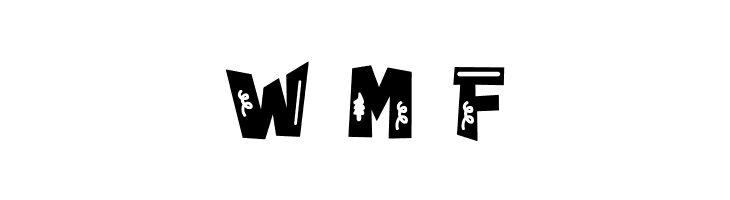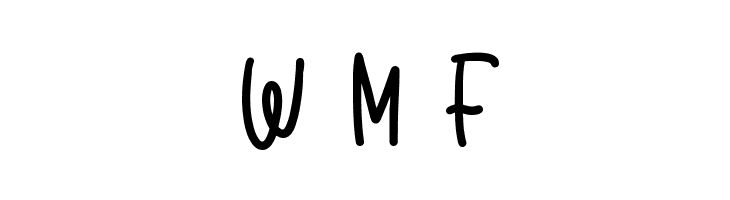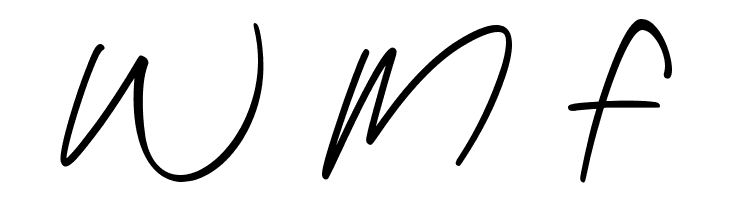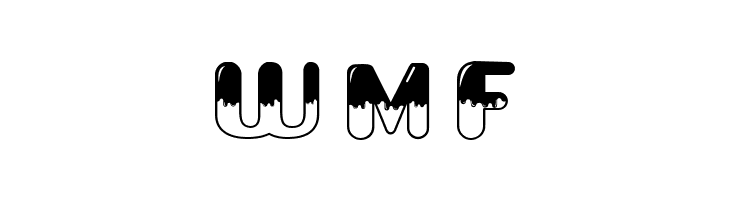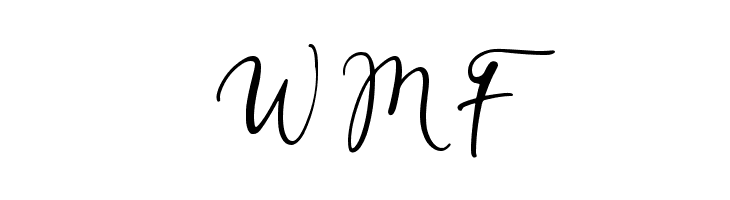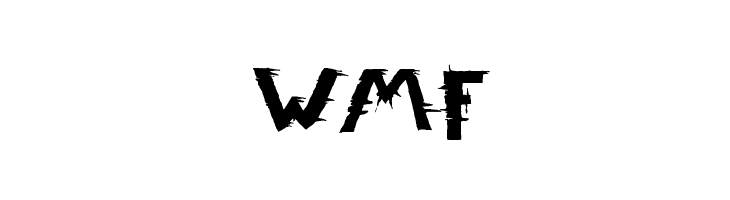
A fluid and elegant script font with a modern, handwritten style.
A playful, winter-themed font with snowflakes and stars.
A whimsical decorative font with winter-themed illustrations.
A playful, winter-themed decorative font with snow-covered characters.
A lively and elegant script font with flowing, cursive letterforms.
A festive, winter-themed decorative font with bold, playful characters.
A bold, geometric font with a modern, decorative style.
A playful, rounded font with smooth curves and a friendly appearance.
A playful handwritten font with a casual, friendly style.
A bold, jagged font with thorn-like edges, perfect for dramatic and intense designs.